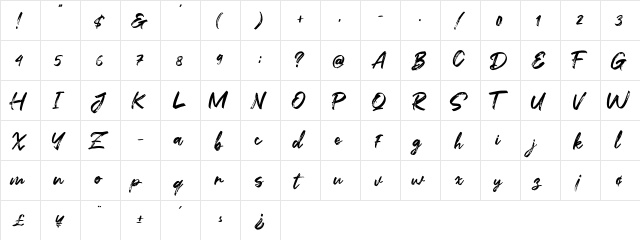
Flashing Regular
| Foundry | Khurasan |
| Designer | Khurasan |
Design Context for Flashing Typeface
Flashing is a composed and adaptable typeface that performs quietly and consistently across a wide range of design contexts.